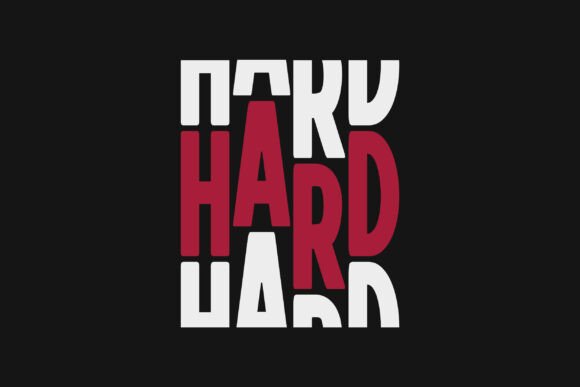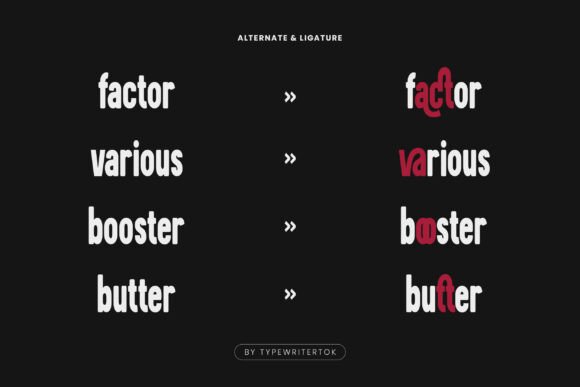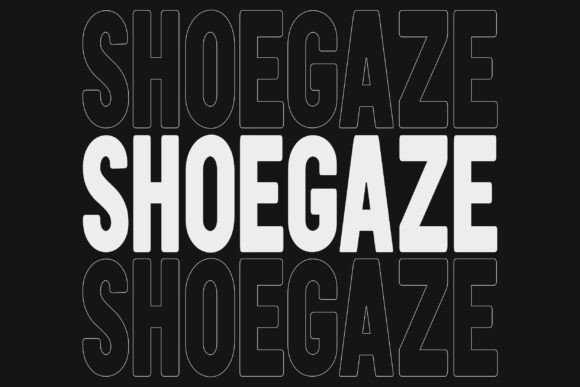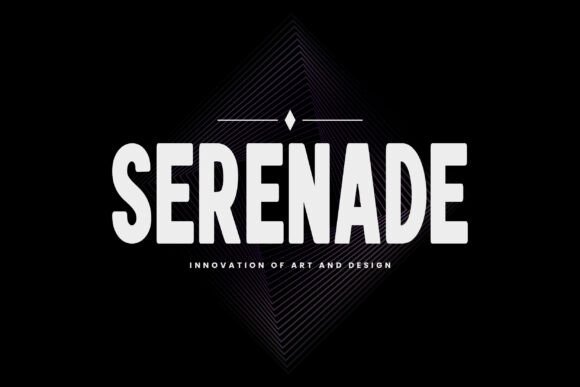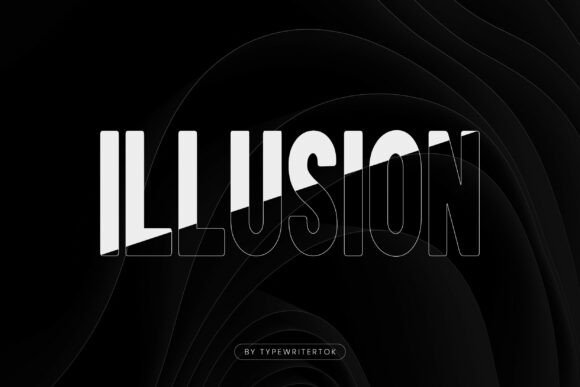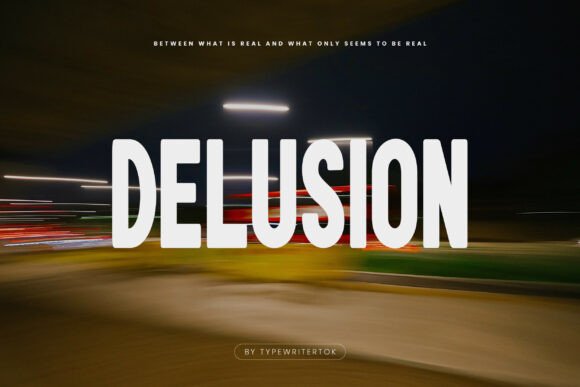
Introduction to Oryza Font
Enter the Oryza Font, a game-changing design resource crafted specifically for modern content creators. This clean, bold, and impactful sans-serif font is designed to make a statement, perfect for YouTube thumbnails, posters, headlines, and any design that needs clarity and authority. With its confident letterforms and strong readability, the Oryza Font is a valuable addition to any designer’s toolkit.
Whether you’re working on a social media graphic, editorial layout, or digital project, the Oryza Font offers effortless access to all glyphs, swashes, and alternate characters thanks to its PUA-encoded design. And the best part? It’s available for free download, complete with a transparent background, making it easy to integrate into your design.
Key Features of Oryza Font
- High-quality, elegant design perfect for creative projects that require a sophisticated look.
- Comes in 5 different styles, including Regular, Italic, Bold, Bold Italic, and a unique “Handwritten” style.
- Designed to be highly legible at various resolutions and sizes, from small text to large headings.
- Perfect for use in a variety of design contexts, including logos, typography, and packaging design.
Honest Review: Oryza Font
As a designer, I’m always on the lookout for high-quality design resources to elevate my creative projects. The Oryza Font has caught my attention, and I’m excited to share my thoughts on it.
What works well: ✨ The Oryza Font offers a clean and modern aesthetic, making it perfect for various design applications. The font is highly versatile and can be used for both digital and print projects. I appreciate the transparent background, which allows for seamless integration into any design.
- High-quality font with a modern aesthetic
- Perfect for digital and print projects
Any limitations: ⚠️ While the Oryza Font is free to download, the font family is relatively small, with only a few weights available. This may limit its use in more complex design projects that require a wider range of font styles.
Overall impression: I’m impressed with the Oryza Font’s clean design and versatility. Although it has some limitations, it’s a great design resource for designers on a budget or those who need a simple, modern font for their creative projects.
The Oryza Font is a high-quality design resource perfect for any creative project. With its unique style and transparent background, this font is sure to elevate your designs.
For optimal results, use the Oryza Font in conjunction with a high-contrast background to make the text stand out.
The Oryza Font is perfect for:
- Designing logos and branding materials
- Creating social media graphics and posts
- Developing website content and copy